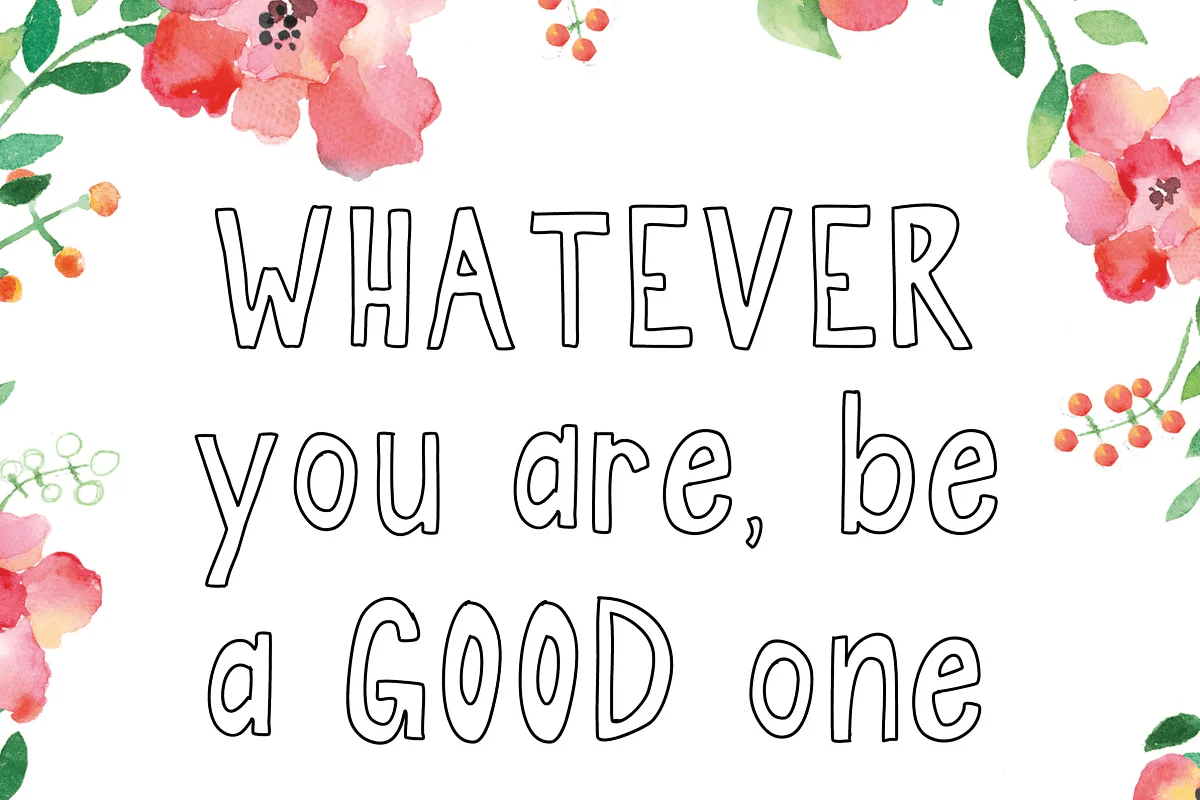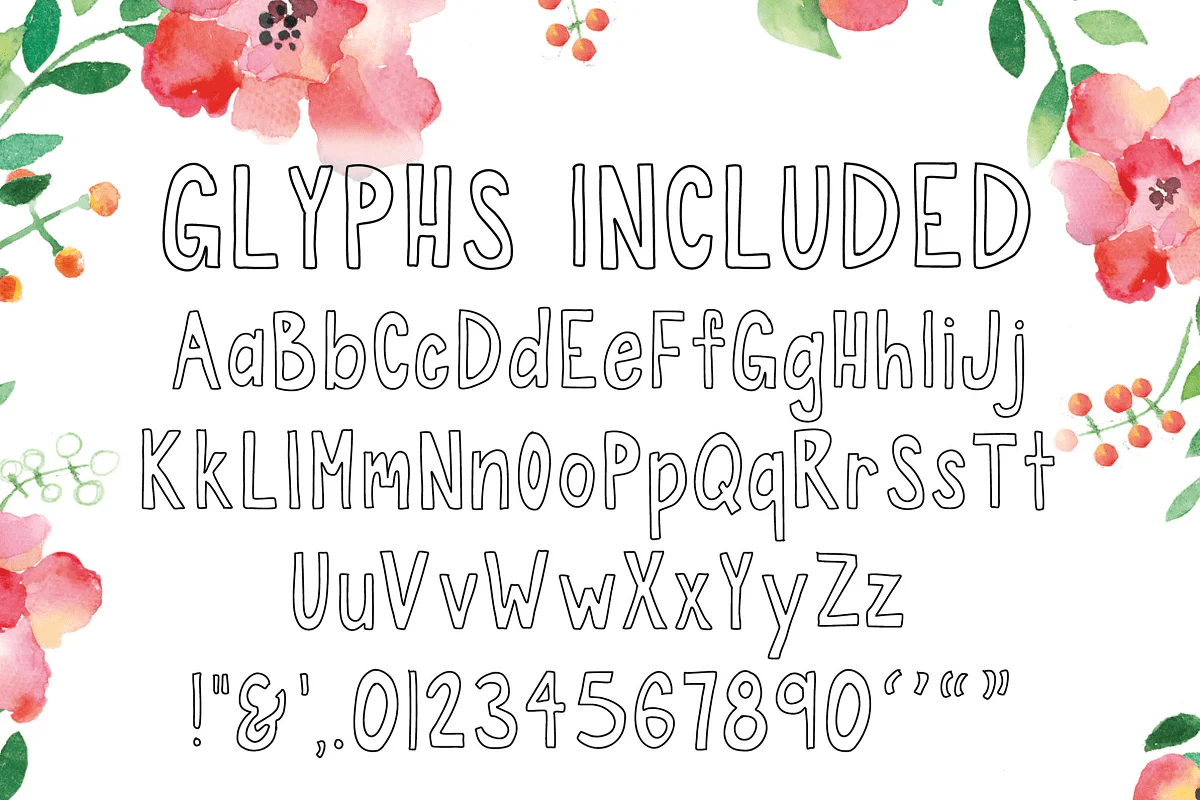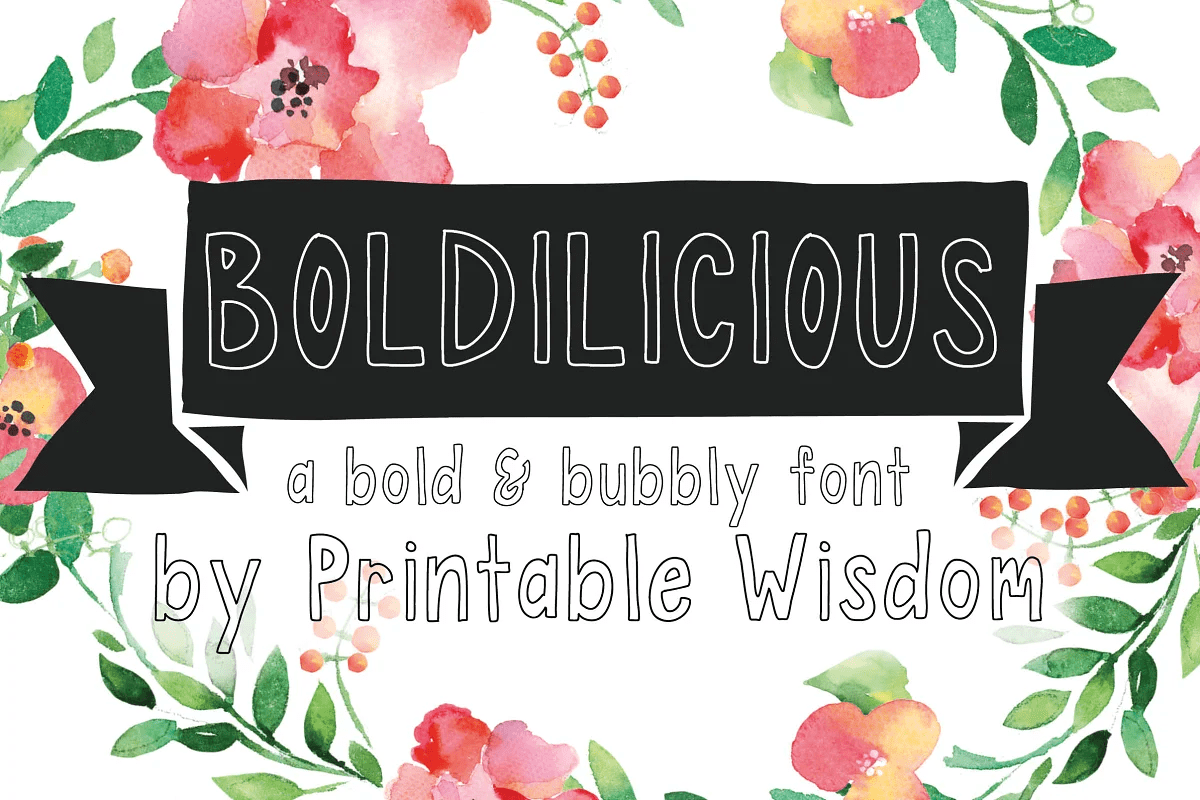
Boldilicious
About Boldilicious
Bold lines, handcrafted character, and designed for readability. Whether you are a teacher who uses this font in your classroom, or a designer who uses this font in your invitations and projects – Boldilicious is sure to be a hit!